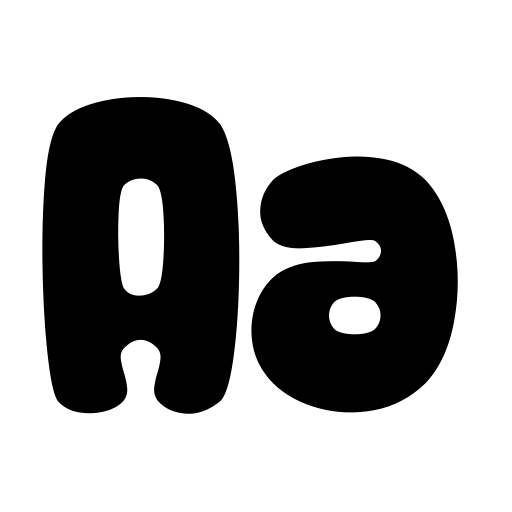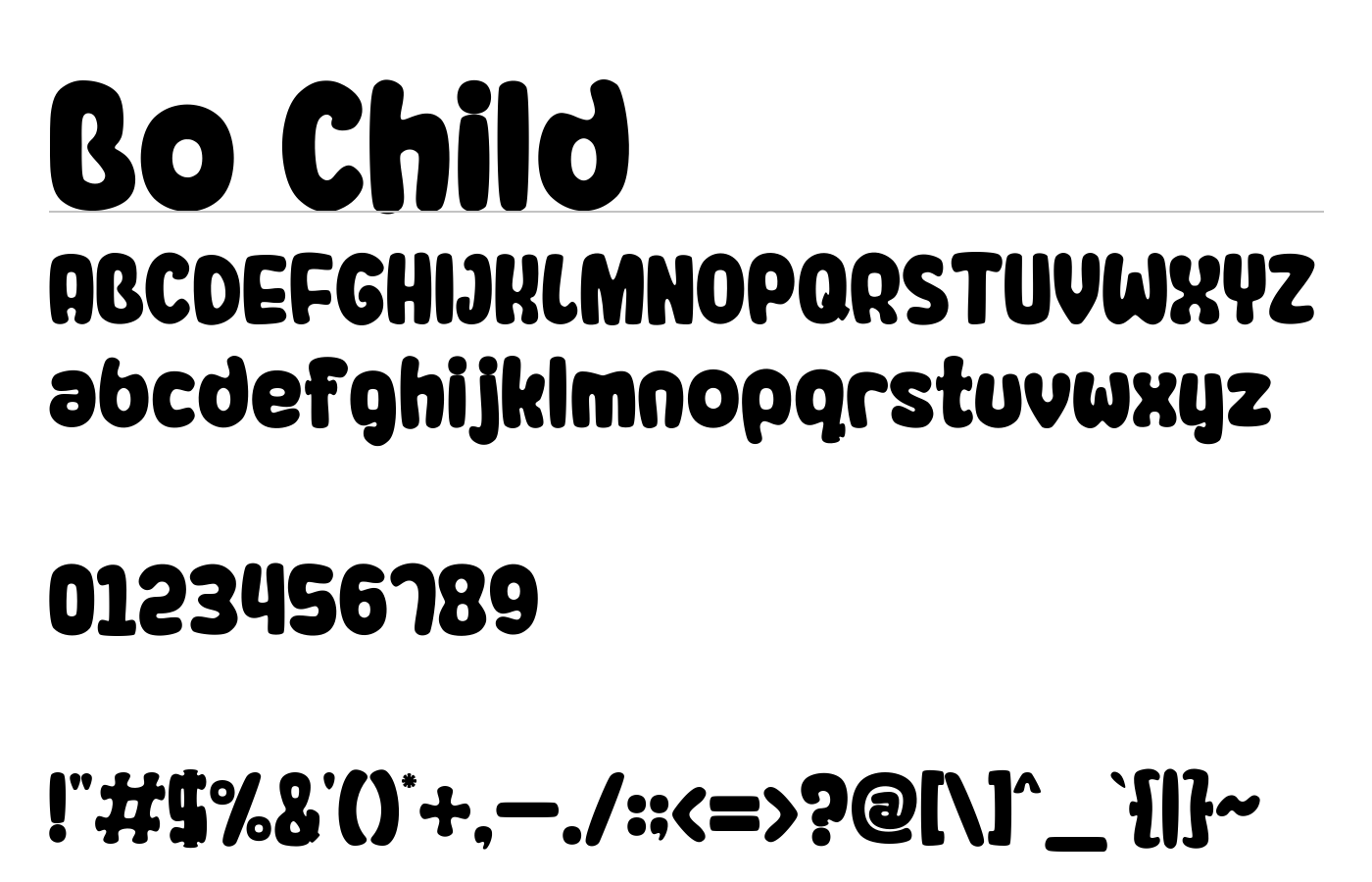
Bo Child is a bold, playful sans serif font with soft, rounded edges and a friendly, casual vibe. Its chunky letterforms and high x-height make it highly readable and perfect for fun, informal designs like children's books, posters, and branding that seeks a warm, approachable tone. This font adds a lively, cheerful personality to any project that aims to be inviting and lighthearted.
Bo Child Font
About Bo Child Font
| Font family | Bo Child Font |
| Designer | Dwi Iswahyudi (Dacatype Studio) |